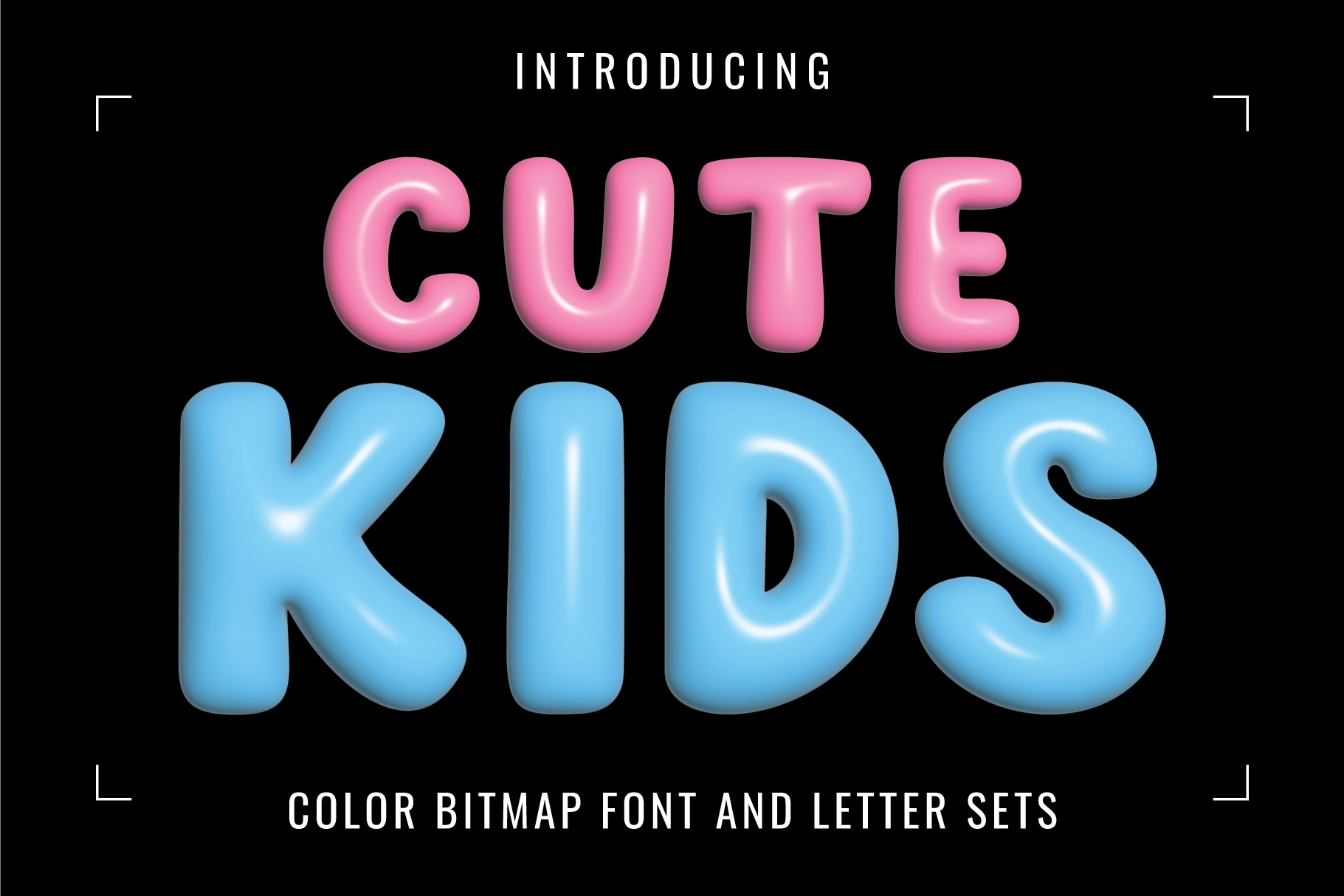
Cute Kids Font
Introducing a sweet color font named “Cute Kids Font” a Charming, rounded letters font for you to use in your upcoming projects. This unique font will bring a cheerful vibe to any text. Perfect for expressing affection and happiness, It will certainly make your designs stand out!
FEATURE:
- This entire font is capitalized.
- Letters: A B C D E F G H I J K L M N O P Q R S T U V W X Y Z.
- Numbers: 0 1 2 3 4 5 6 7 8 9.
- Excluding punctuation.